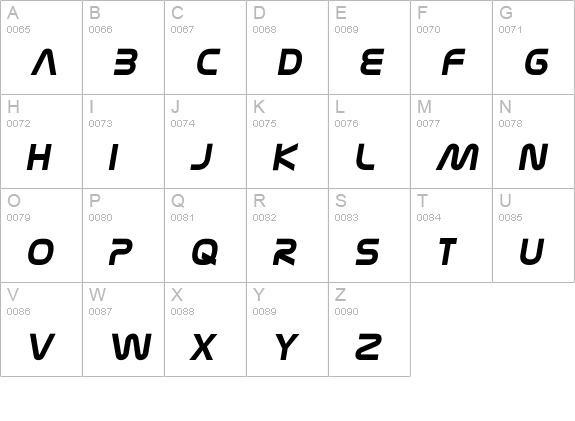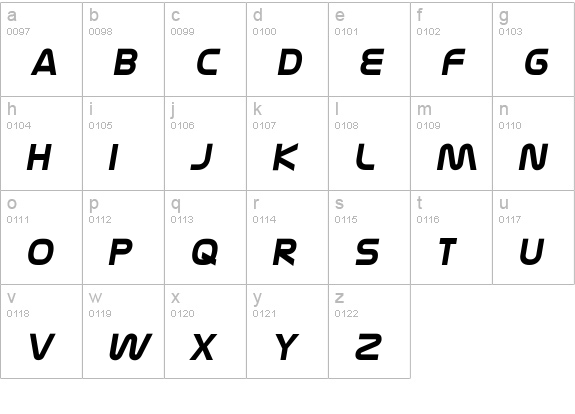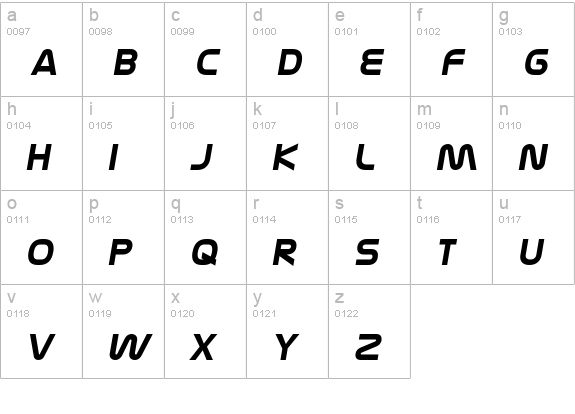
Nasalization Bold Italic is a strong, high-contrast, italic variant in the Nasalization typeface family \xE2\x80\x94 well suited to headlines, attention-grabbing titles, and strong calls-to-action.
Nasalization Bold Italic is a striking and dynamic font that exudes a sense of modernity and sophistication. Its bold and italicized characters make a bold statement while maintaining a sleek and contemporary look. The unique design of this font adds a touch of flair to any project, making it perfect for headlines, titles, and branding materials. What sets Nasalization Bold Italic apart is its versatility and ability to convey a sense of energy and movement. Whether used in print or digital designs, this font is sure to grab attention and leave a lasting impression. Best of all, Nasalization Bold Italic is available for free download at FontsMarket.com, making it easily accessible to designers and creatives looking to add a touch of boldness to their work. Don't miss out on the opportunity to elevate your designs with this stunning and eye-catching font.